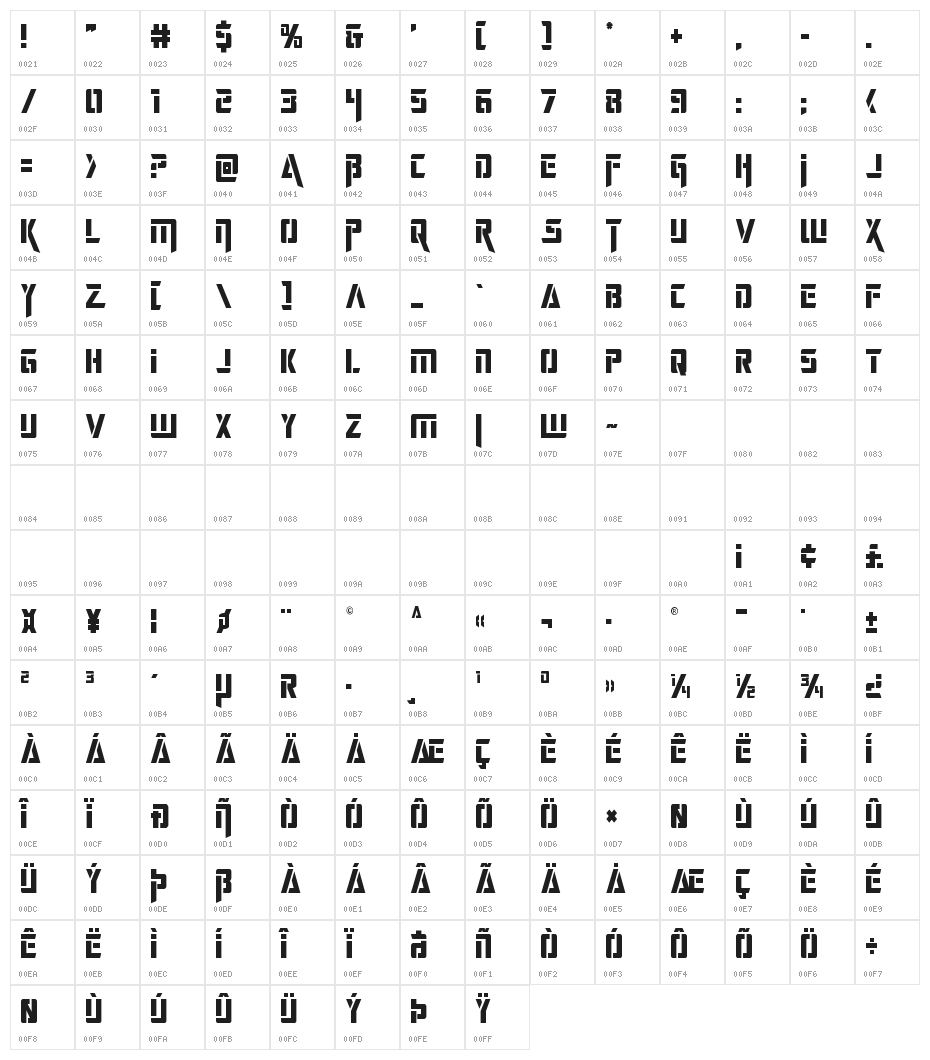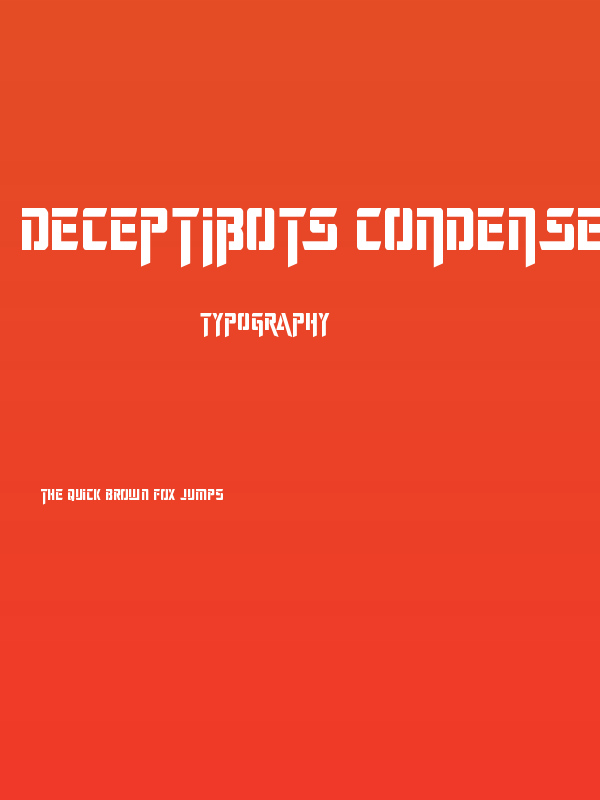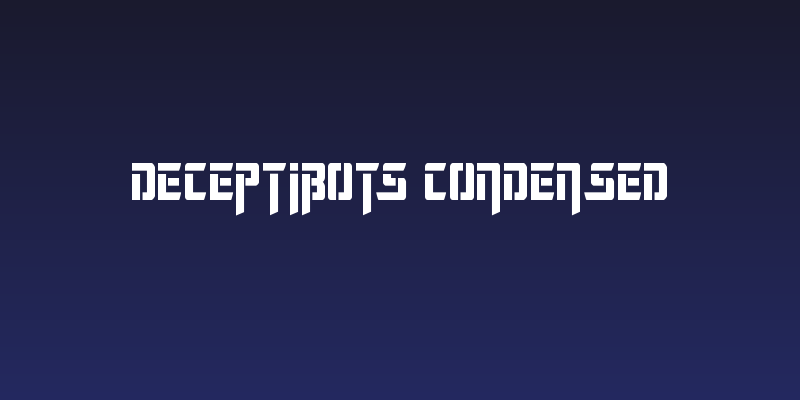
Deceptibots Condensed Font
Deceptibots Condensed Description
This font features a bold, futuristic design with sharp angles and geometric shapes. The characters are condensed, giving a compact and efficient appearance. The uppercase letters are particularly striking, with a robotic and mechanical feel that suggests a sense of strength and modernity. The numbers and special characters maintain this theme, providing a cohesive look across all elements. The font's unique style makes it stand out, ideal for projects that require a strong visual impact.
| Proposed Projects | Ideal for sci-fi themed designs, video game titles, tech branding, and futuristic posters. |